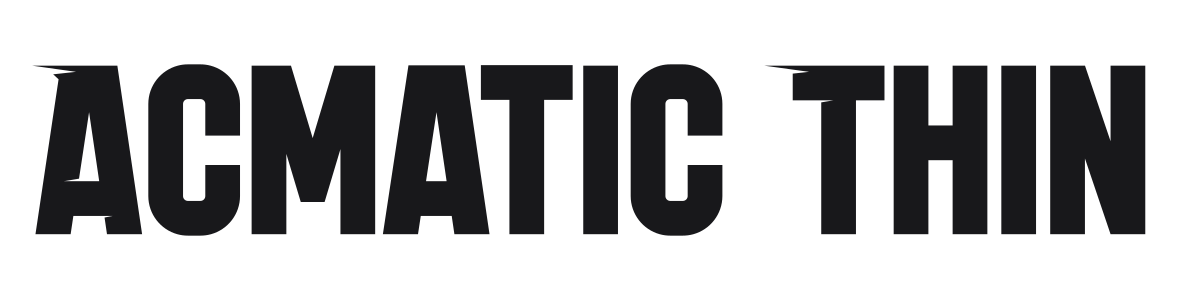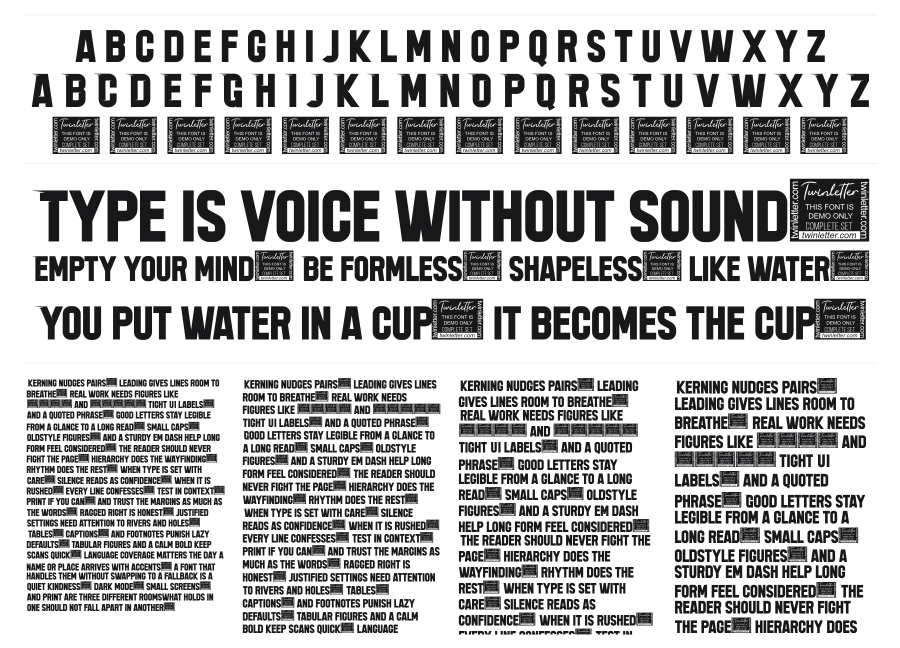
Acmatic Thin
Acmatic Thin is a heavily condensed bold grotesque that packs maximum text into minimum width. Despite the 'Thin' name, the specimen shows a bold weight with squared curves and flat terminals that read as pure utility under pressure. It carries the no-nonsense energy of a newspaper sports section or stadium scoreboard.